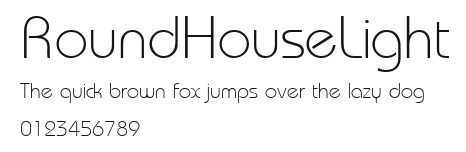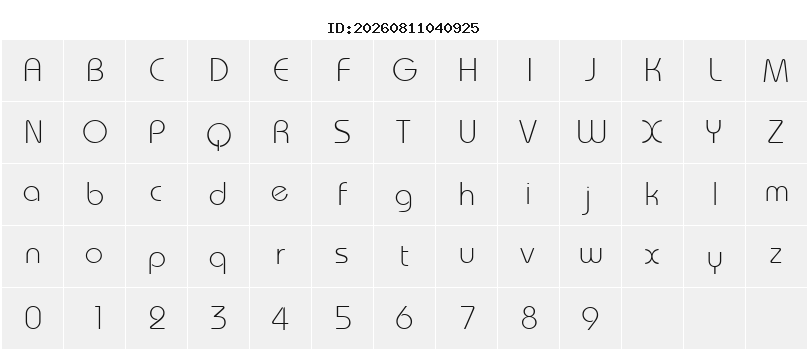
RoundHouseLight Preview
• Font Name: RoundHouseLight
• Full Font Name: RoundHouseLight-Regular
About RoundHouseLight.ttf
RoundHouseLight.ttf is a modern, elegant sans-serif font designed for ultimate readability and visual harmony. Perfect for branding, headlines, web design, and print materials.